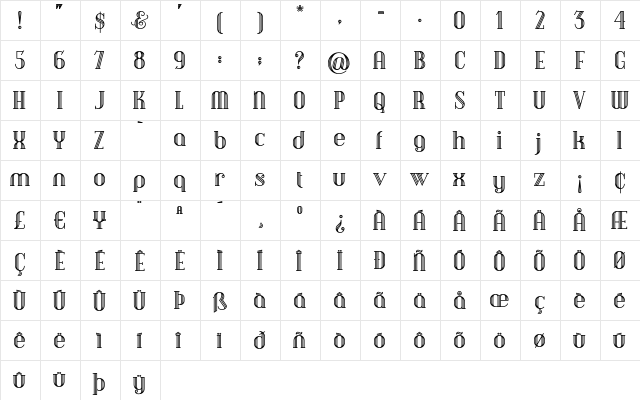
DebonairInline Regular Font Preview
DebonairInline Regular
Design Context for DebonairInline Typeface
DebonairInline brings ornamental detail and strong personality to headlines and identities, where visual impact matters more than quiet functionality.
Font Pairing: Pair with a clean neutral sans-serif for body copy to let DebonairInline's character lead without overwhelming the composition.
Pro Tip: Treat DebonairInline as the centrepiece of your typographic hierarchy. One strong heading set in a decorative face can carry an entire layout.